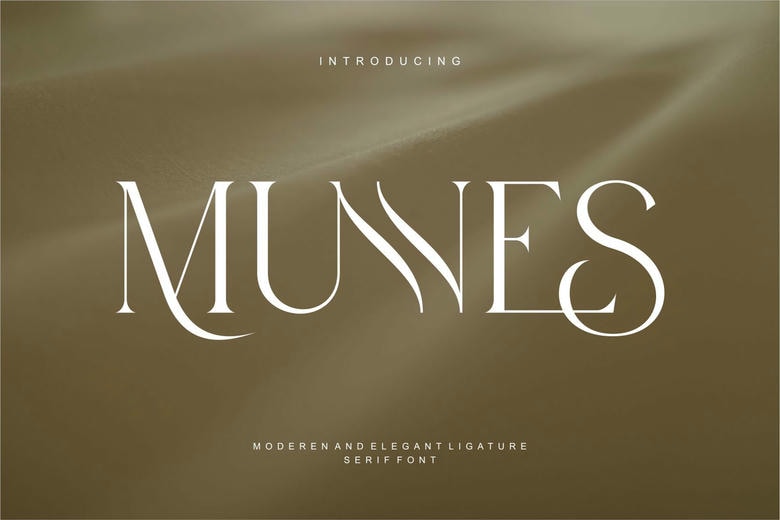
Munnes Font
MUNNES is a serif font that combines classic elegance, vintage charm, and a modern touch. Every letter is thoughtfully crafted, giving the typeface a refined appearance. It’s a solid choice for designers looking to bring sophistication, style, and a bit of nostalgia to their projects.
Munnes Serif Font